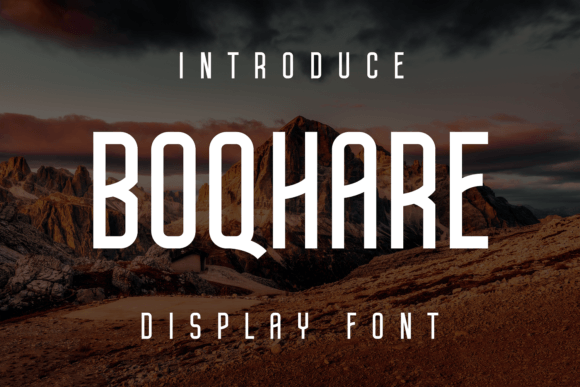
The Ultimate Game-Changer: Boqhare Font
- ✨ Unique and eye-catching design: Boqhare Font has a distinctive style that will elevate any creation and make it instantly recognizable.
- ✅ Versatility: Whether you’re working on a logo, a poster, or a social media graphic, this font will adapt seamlessly to any project.
- 💡 Inspires creativity: The quirky and playful vibe of Boqhare Font will spark your imagination and help you come up with innovative ideas.
While Boqhare Font is an amazing addition to any font library, there are a few things to keep in mind:
- 🤔 Legibility at small sizes: As with many display fonts, Boqhare may not be the best choice for body text or small font sizes. It’s best used for headlines or titles.
- ⚠️ Limited use in formal contexts: The playful nature of Boqhare Font makes it less suitable for formal or professional projects that require a more traditional look.
Boqhare Font was created by a talented designer who wanted to craft a font that would inspire creativity and bring a smile to people’s faces. With its unique blend of playfulness and sophistication, Boqhare Font is sure to become a favorite among designers and crafters alike.
Q: What makes Boqhare Font so special?
A: Boqhare Font’s unique design and versatility make it an excellent addition to any font library. Its playful vibe and range of OpenType features ensure that it will elevate any creation.
Q: Is Boqhare Font difficult to read?
A: As with many display fonts, Boqhare Font may not be the best choice for body text or small font sizes. However, it’s perfectly legible at larger sizes, making it ideal for headlines and titles.